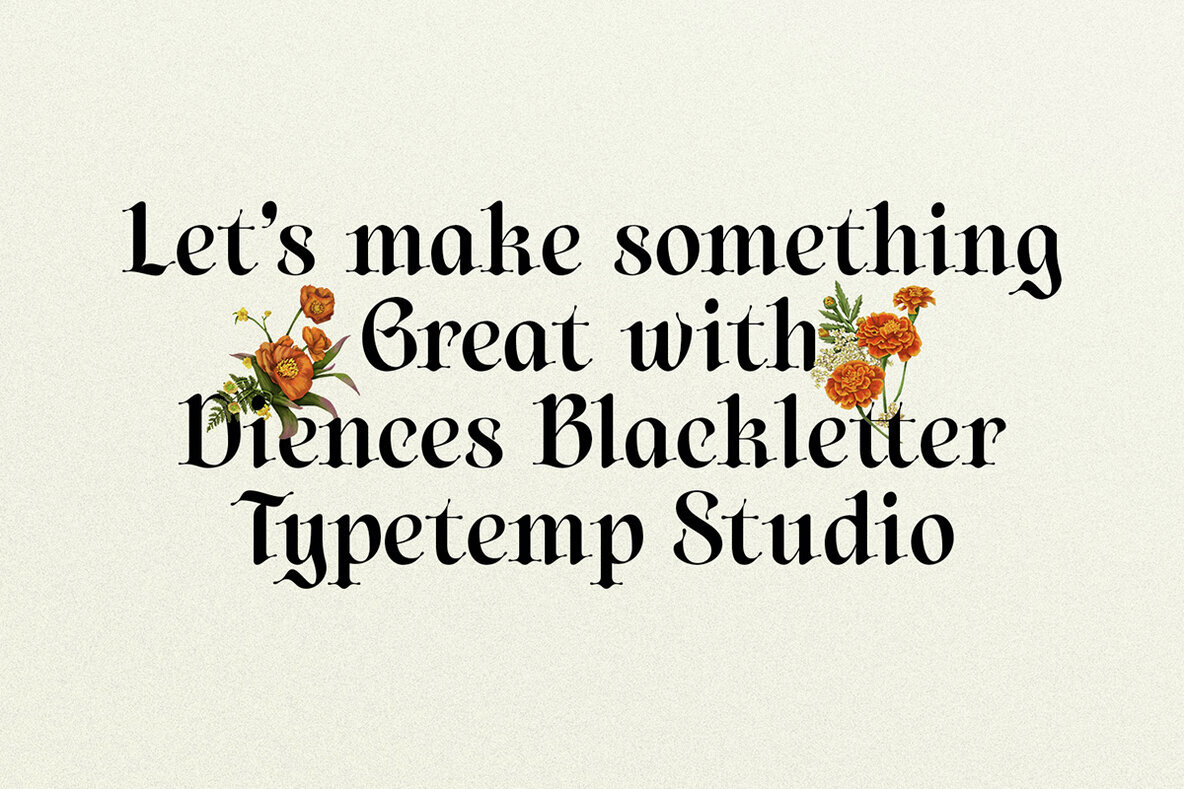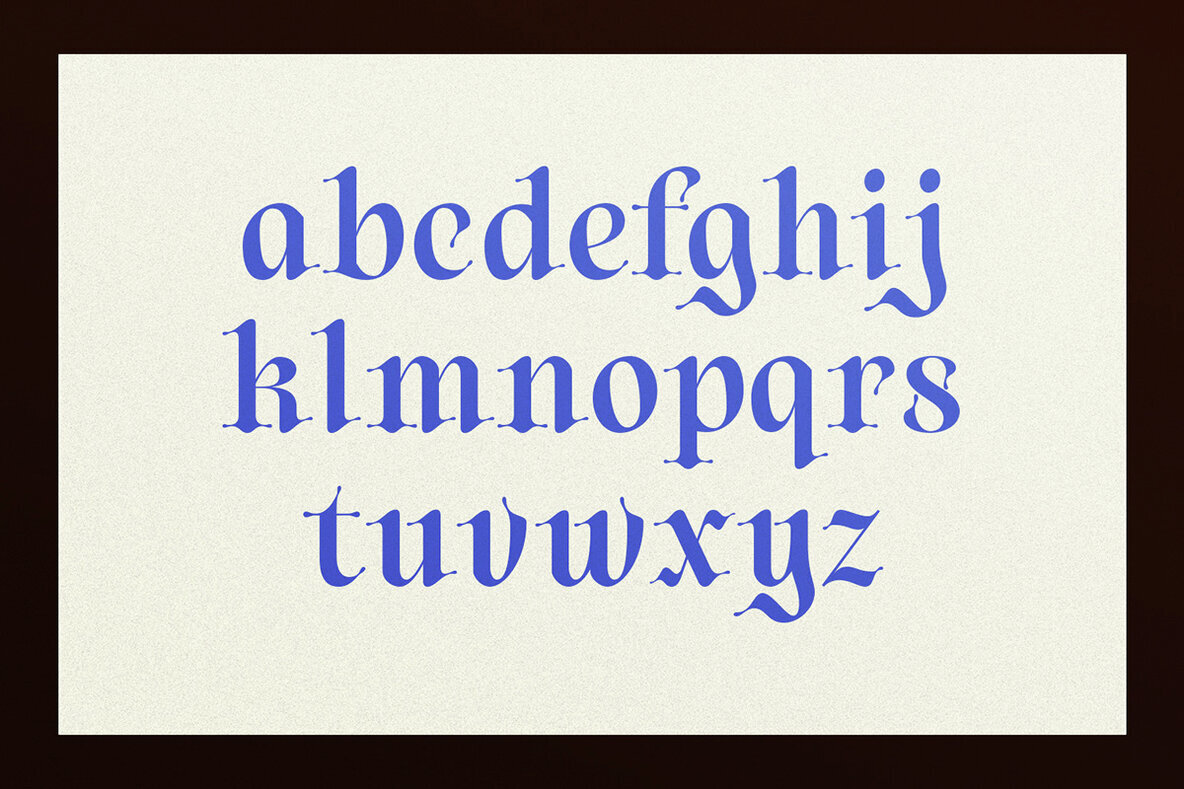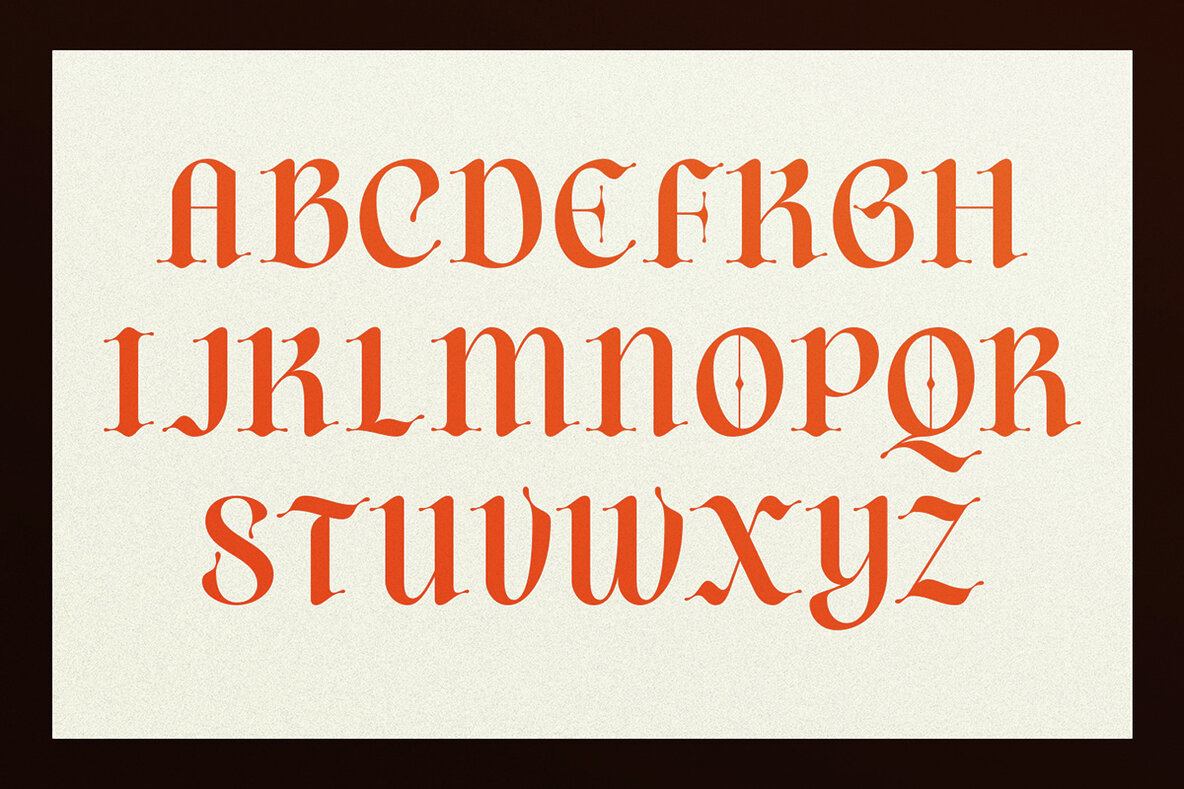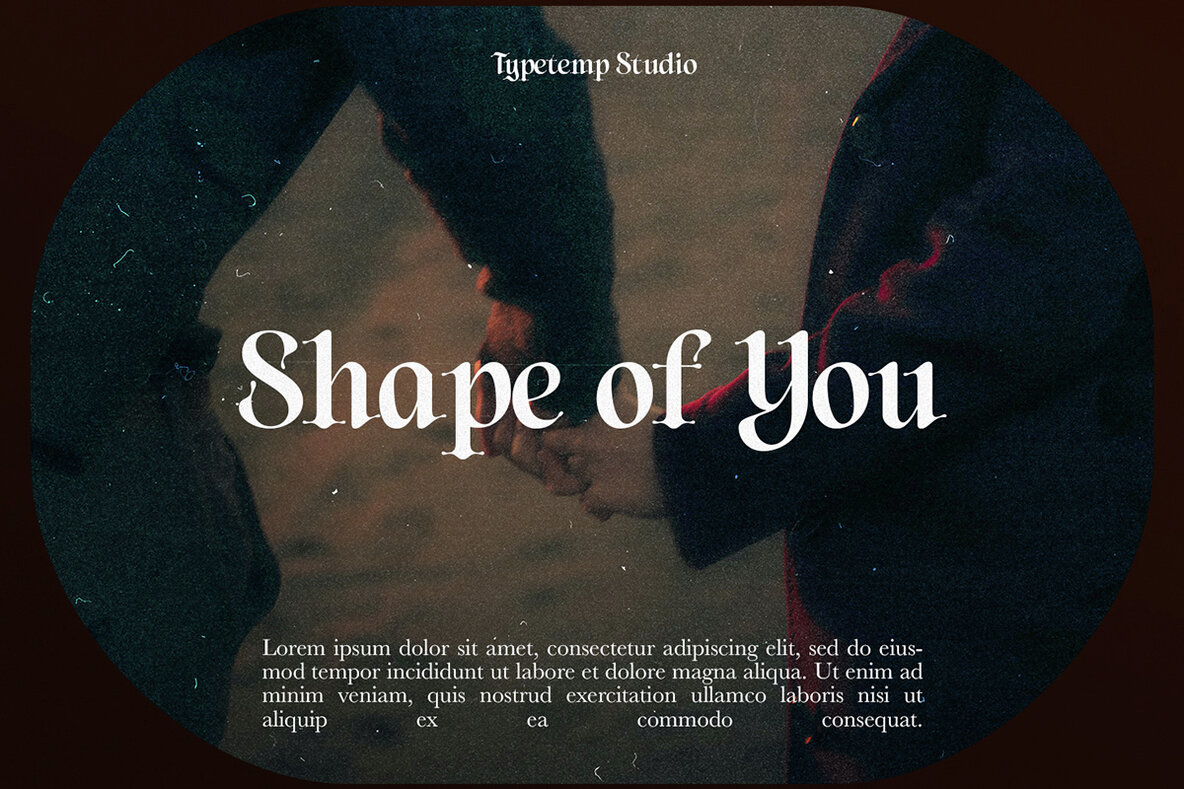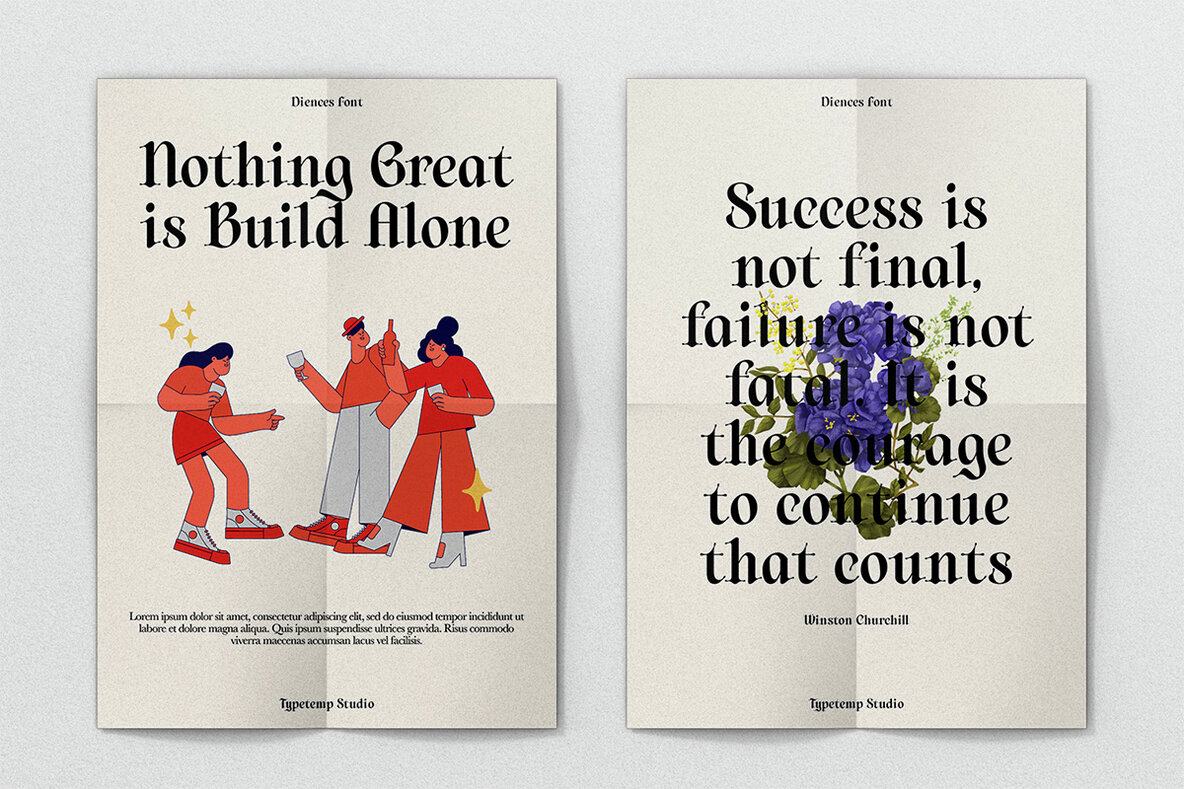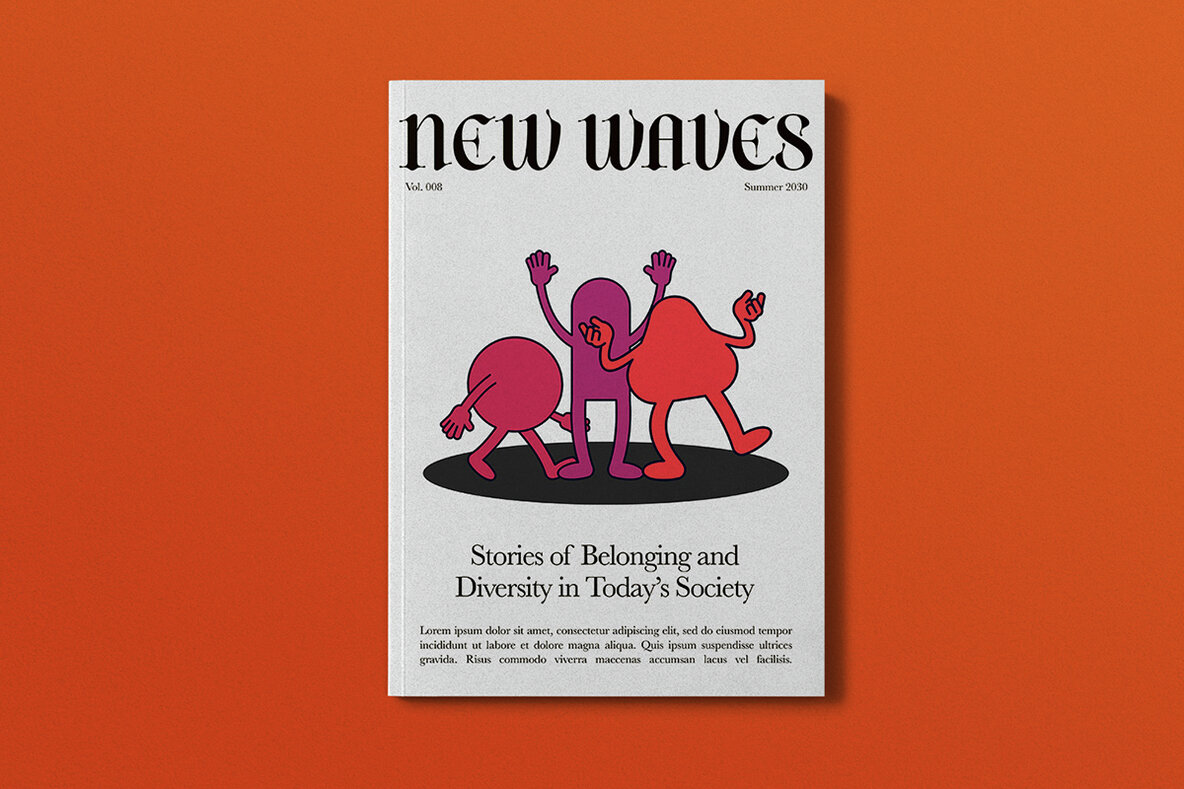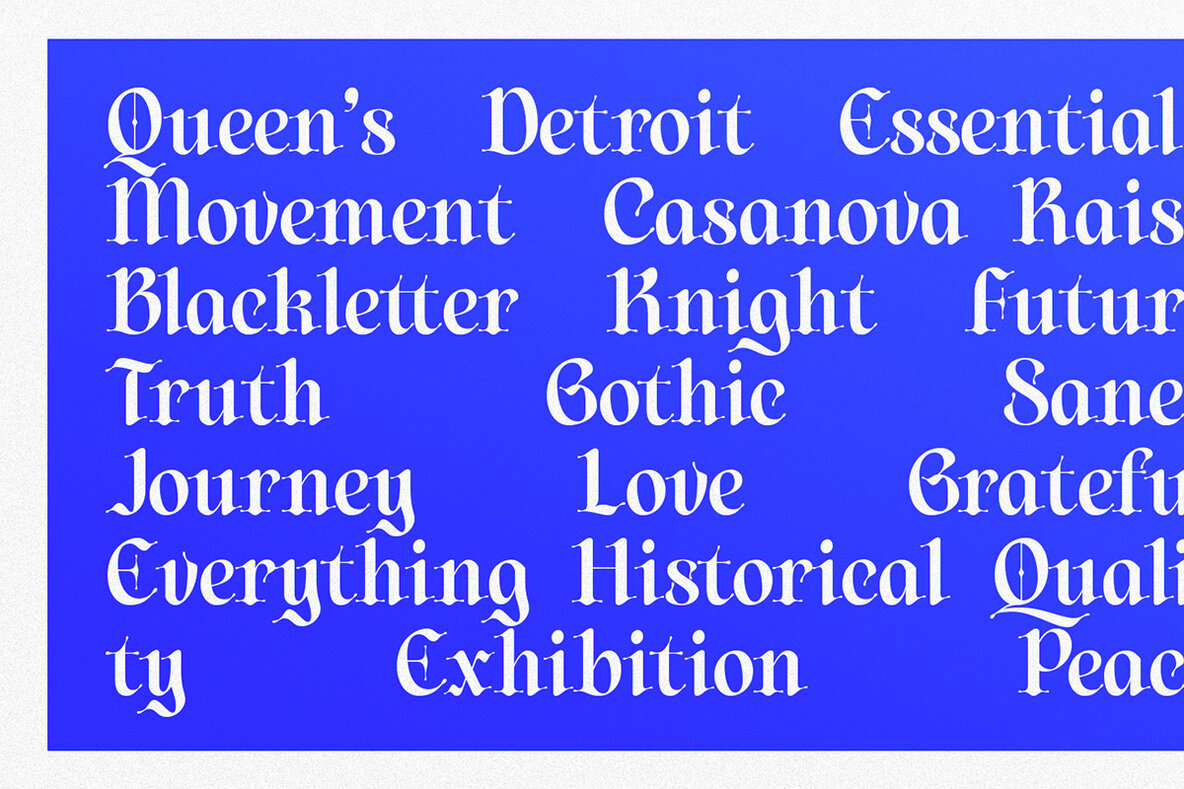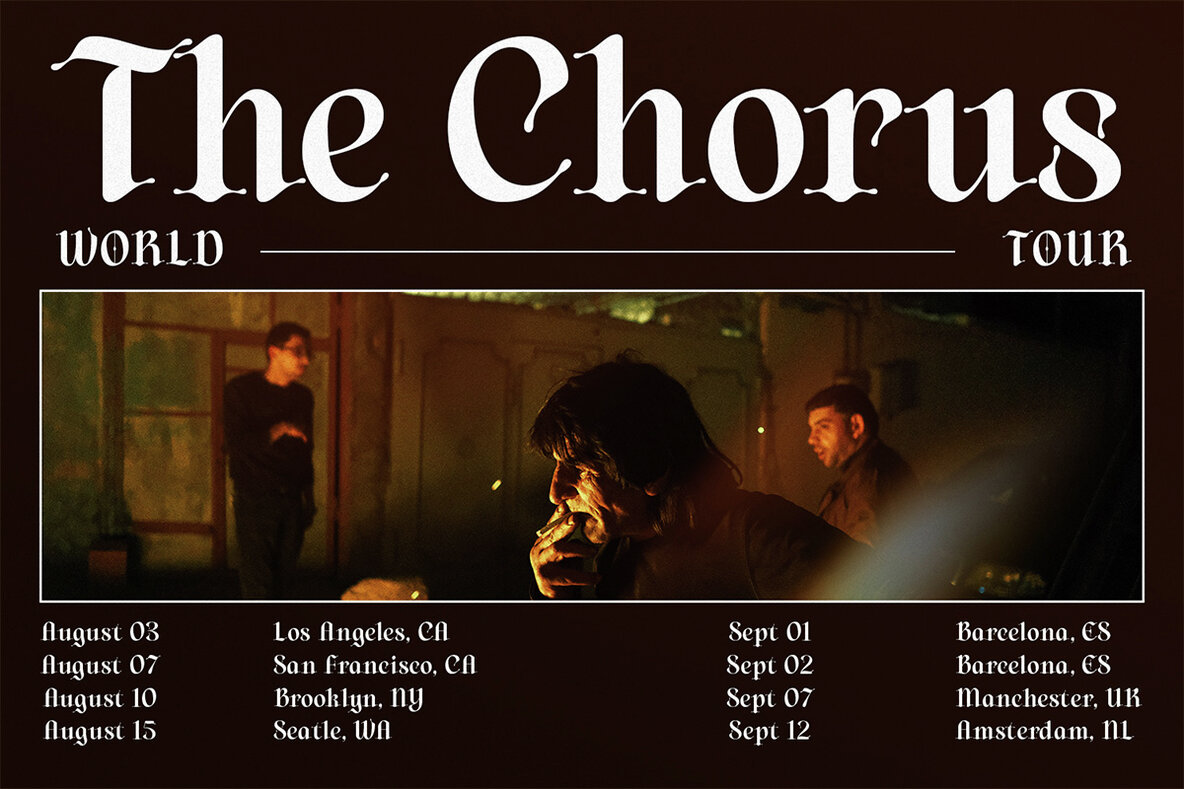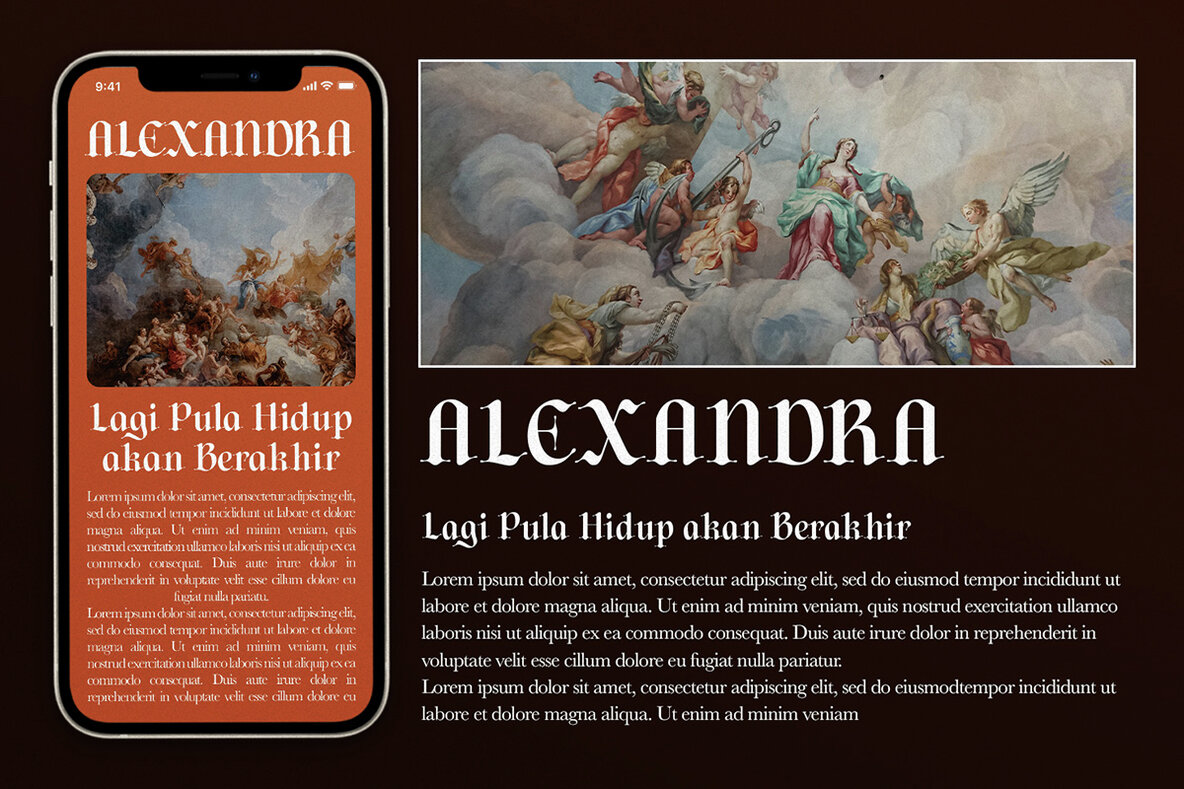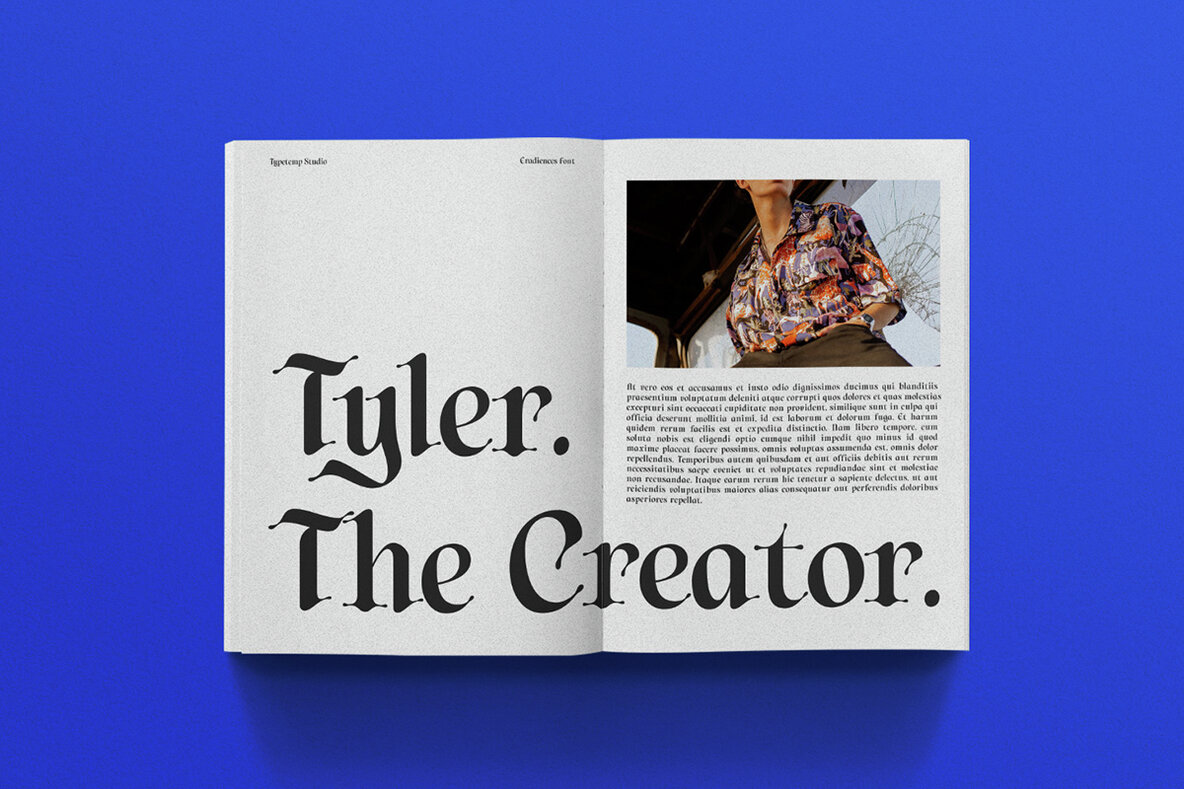
Diences Font
Diences Blackletter Regular
Diences is a display blackletter font that combines elegance and modernity. It includes alternates and ligatures, making it ideal for creating stunning logos, quotes, branding projects, magazine imagery, posters, and more. You'll enjoy using the Diences font and find it a perfect addition to your font collection.Diences: Elegant Modern Blackletter Font